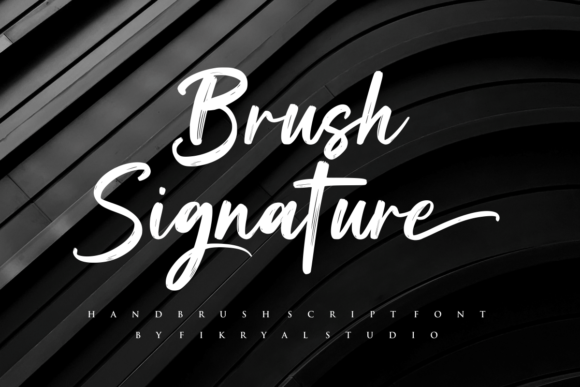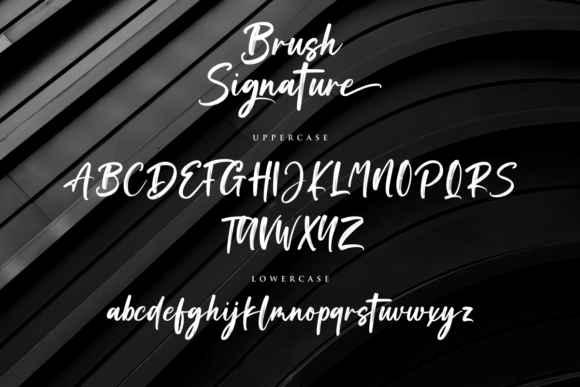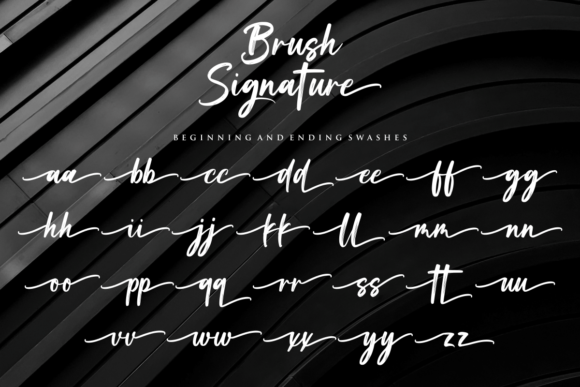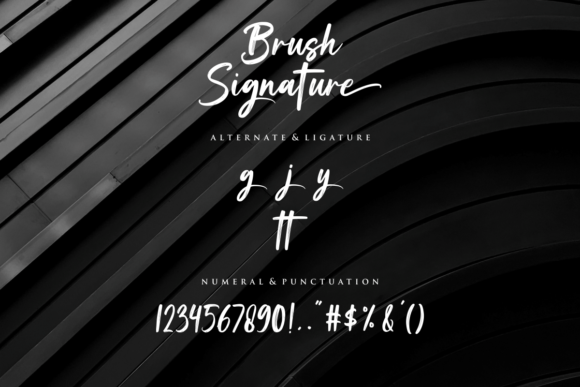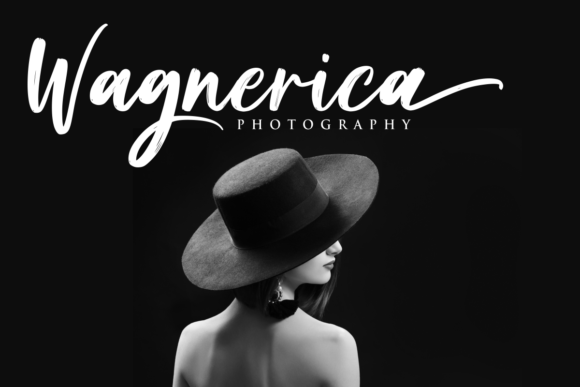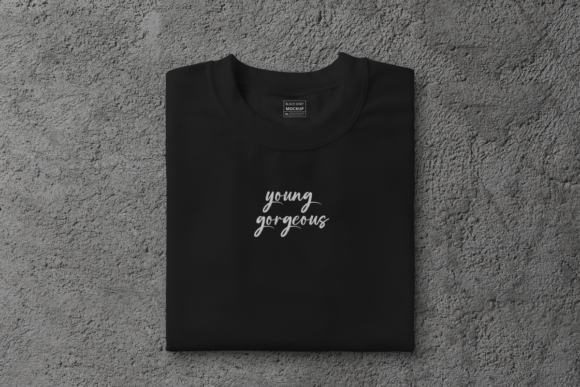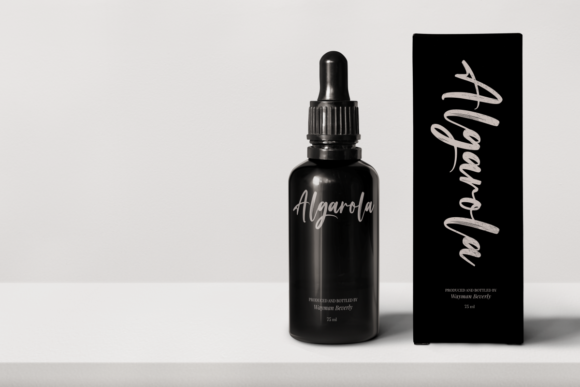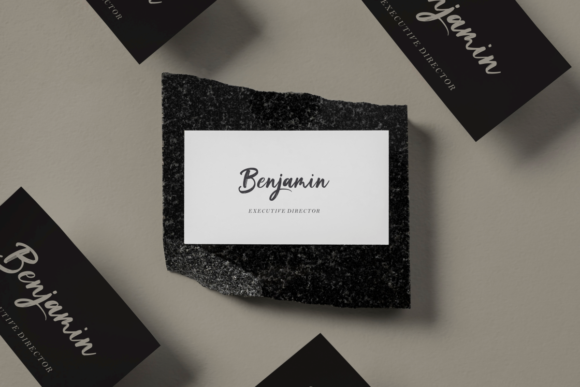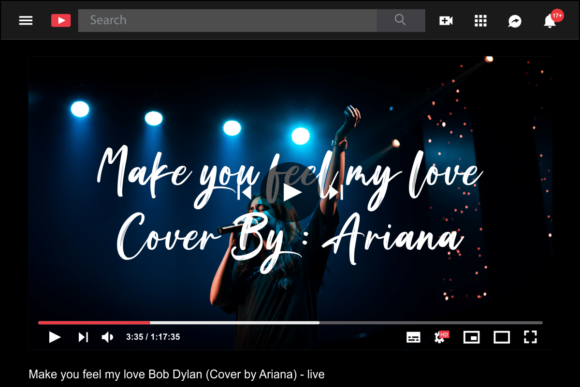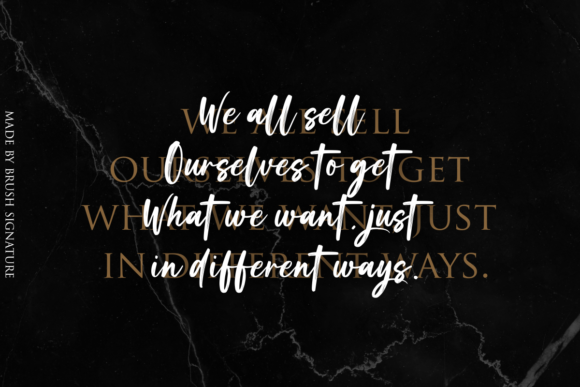
Brush Signature Font
About Brush Signature Font
Brush Signature is a delicate and cursive handwritten font. This gentle font will look gorgeous on a variety of design ideas. Brush Signature is PUA encoded which means you can access all of the glyphs and swashes with ease!